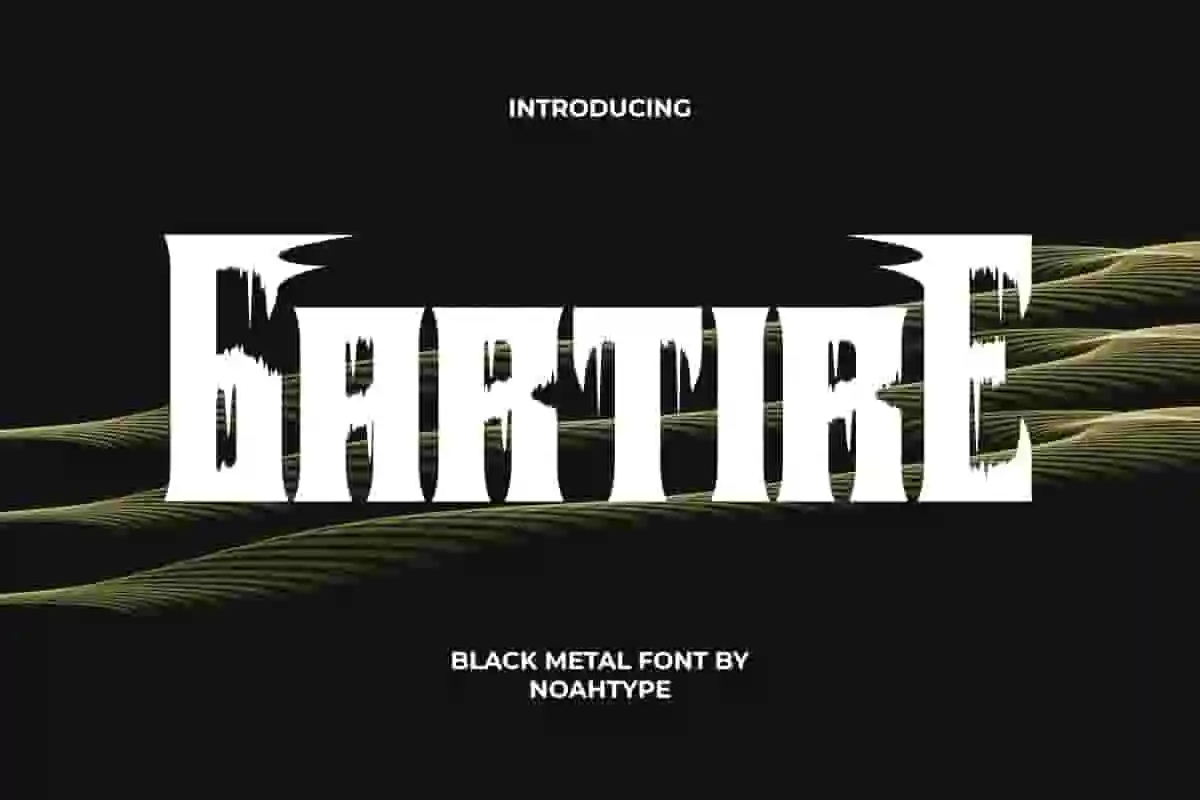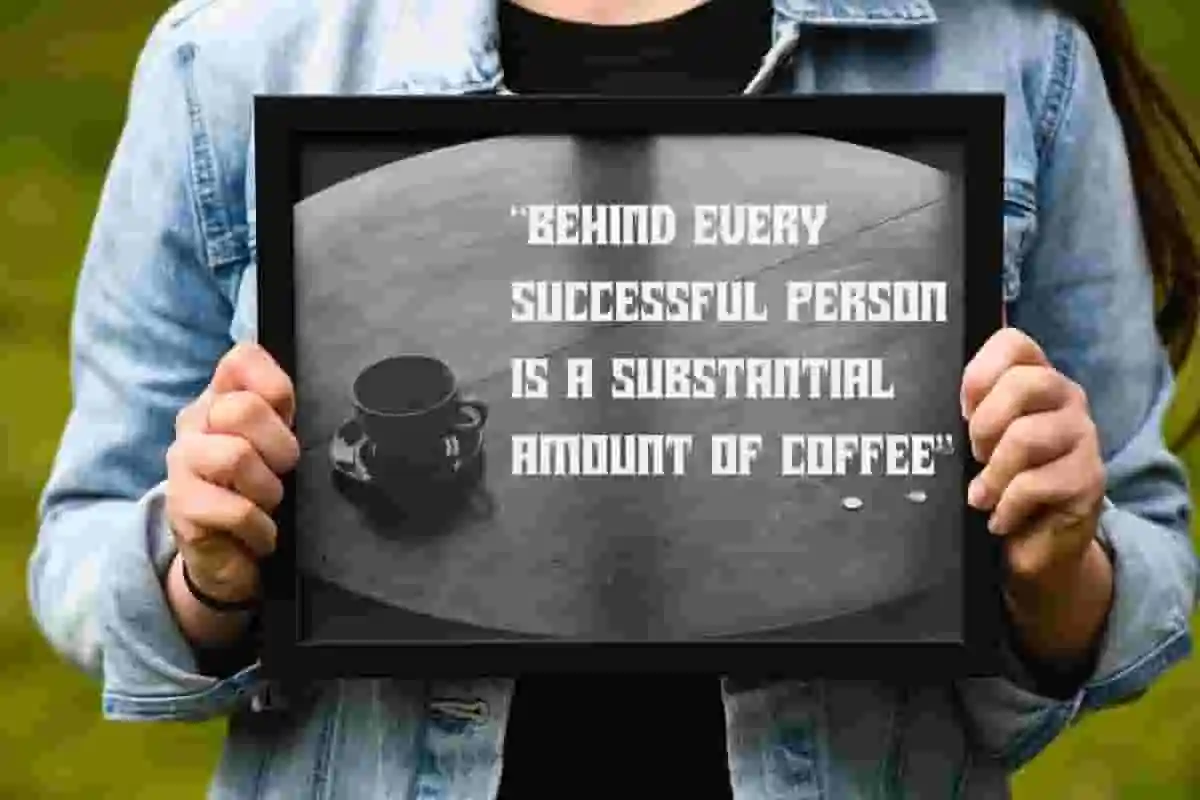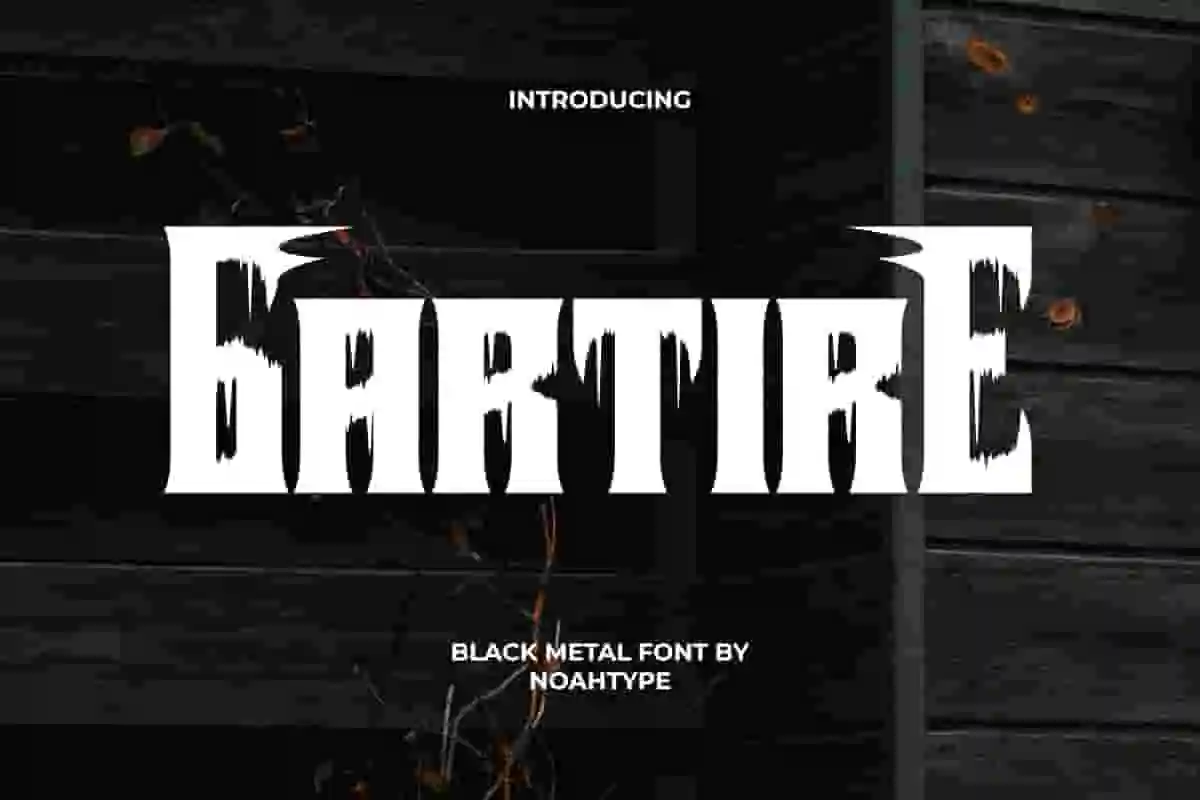
Gartire Font is an empire theme hideous Black Metal font with mysterious dark theme by NoahType. This font has a bold character with the addition of flowing liquid, making it look scary and intimidating. It will be perfect for any designs, such as custom design, brand image, poster, label, invitation, cover, marketing material, menu, printing, product packaging, quotes, signage, website, and many more!
Gartire Font includes full set of ALL CAPS for Uppercase and Lowercase Basic Characters, Numerals, Punctuation, Symbol, and Alternate Character. This mysterious font will make your design awesome and also a perfect choice for many industries, such as game, movie, comic, music, accessories, advertising, art, café, event or festival, fashion, printing, publishing, etc.